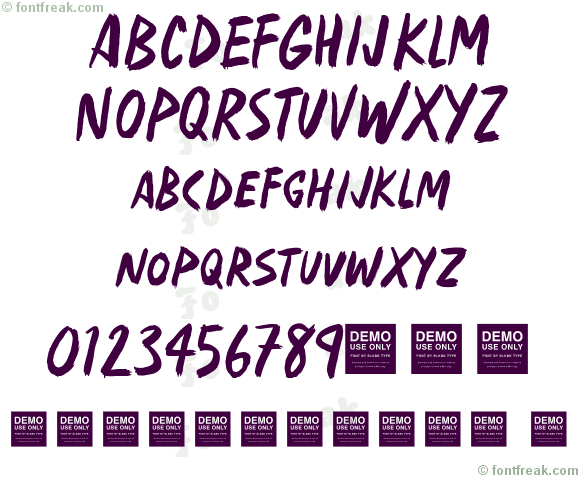
Ghost Writer
About Ghost Writer
Ghost Writer is a captivating handwritten font designed by BLKBK Fonts, showcasing a unique blend of elegance and spontaneity. This display font features bold, expressive strokes that evoke a sense of creativity and personal touch. With a slightly irregular baseline and varying stroke weights, Ghost Writer captures the essence of authentic handwriting, making it an ideal choice for projects that require a human element.
Visually, the font exhibits a medium contrast in its letterforms, where thicker strokes are balanced by slender connections, creating a dynamic appearance that draws the eye. The ample spacing between letters enhances readability while maintaining a playful aesthetic, making it suitable for both large and small text applications. Decorative elements are minimal, focusing instead on the authenticity of handwritten letters, which adds to its charm.
Ghost Writer is perfect for a variety of use cases, including wedding invitations that seek a romantic and personalized touch, movie posters where a dramatic flair is essential, and restaurant menus that wish to convey warmth and approachability. Additionally, it serves well for branding projects aimed at small businesses, allowing them to create a memorable visual identity. Content creators will also find this font useful for blog titles and social media graphics that aim to engage and resonate with audiences.